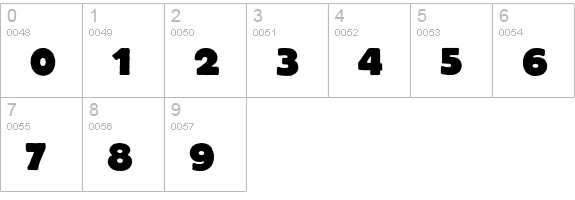
PT Bloc Heavy Cyrillic Font Details
PT Bloc Heavy Cyrillic is a heavy, high-impact variant in the PT typeface family \xE2\x80\x94 well suited to high-impact headlines, posters, and display advertising.
Introducing PT Bloc Heavy Cyrillic font, a bold and impactful typeface designed for making a statement. With its strong, blocky letterforms and Cyrillic character set, this font is perfect for creating eye-catching headlines, posters, and branding materials. The striking heavy weight of PT Bloc Heavy Cyrillic commands attention and adds a touch of modernity to any design project. What's even better is that PT Bloc Heavy Cyrillic font is available for free download at FontsMarket.com. Take advantage of this opportunity to enhance your designs with this unique and powerful typeface. Whether you're working on print or digital projects, PT Bloc Heavy Cyrillic is sure to make a lasting impression. Download it today and unleash its bold potential in your creative endeavors.